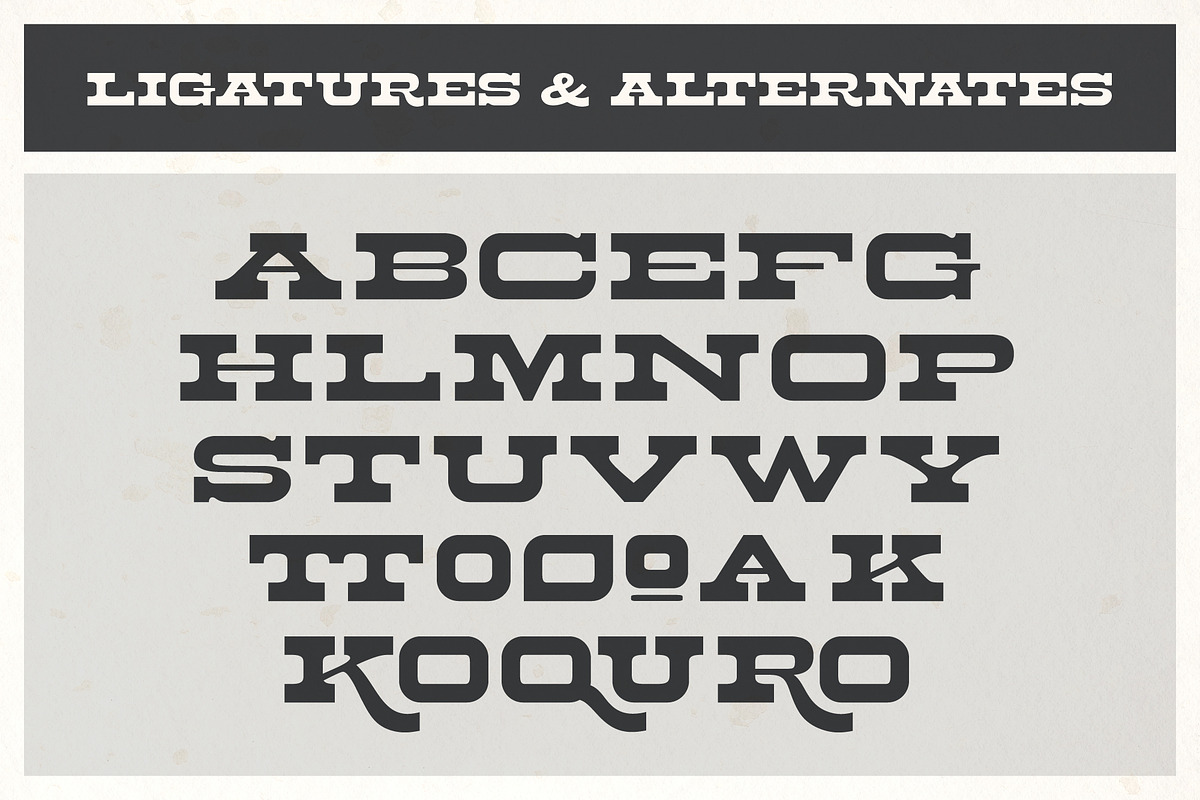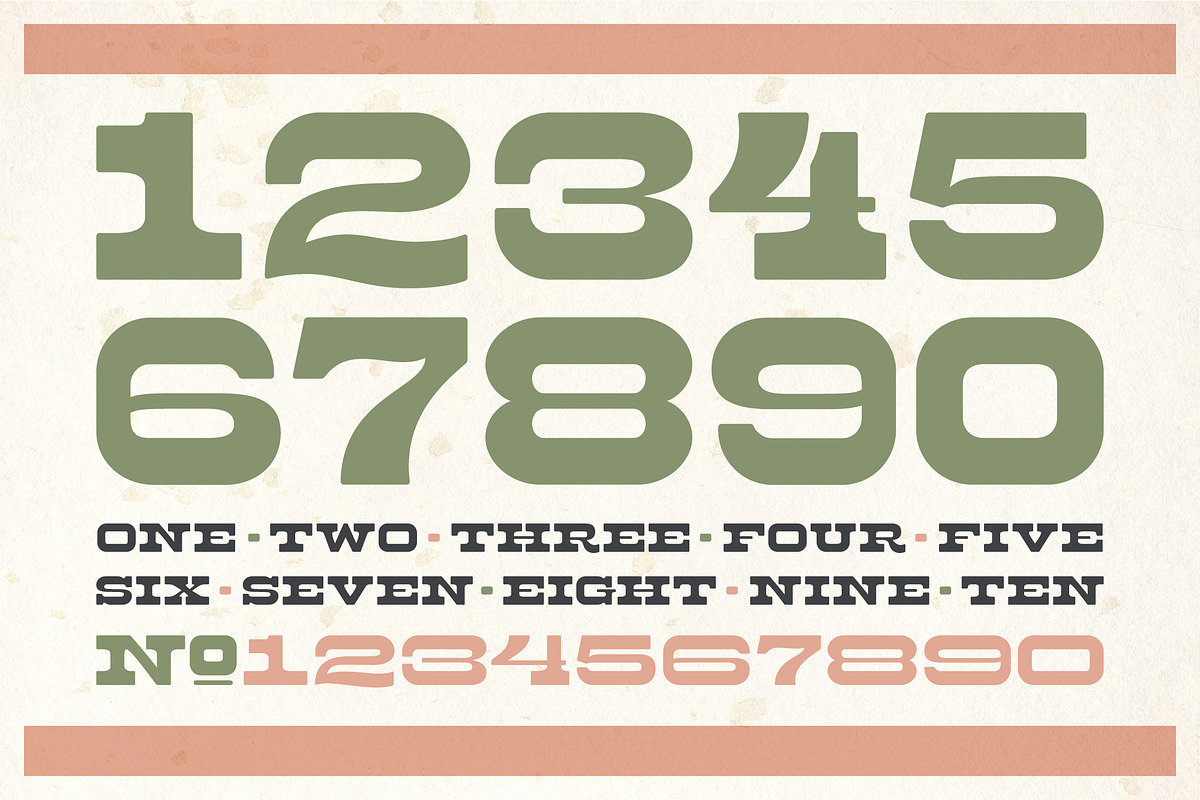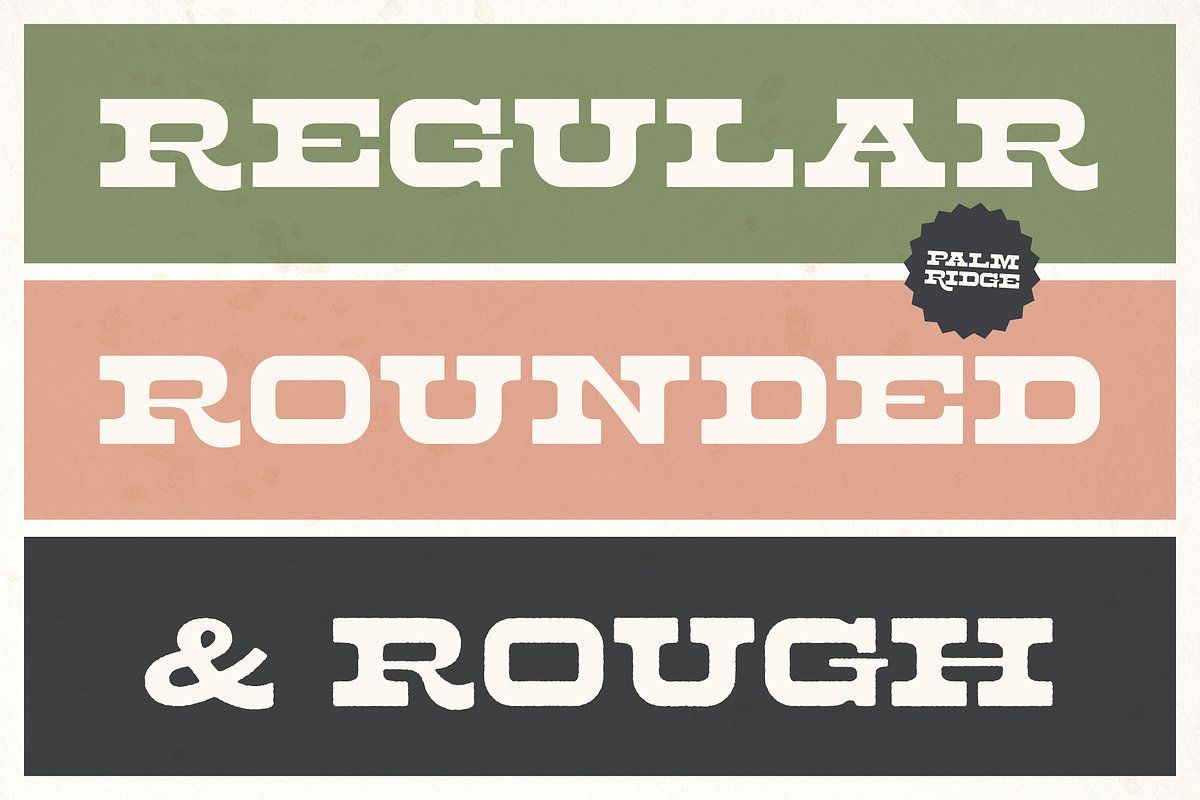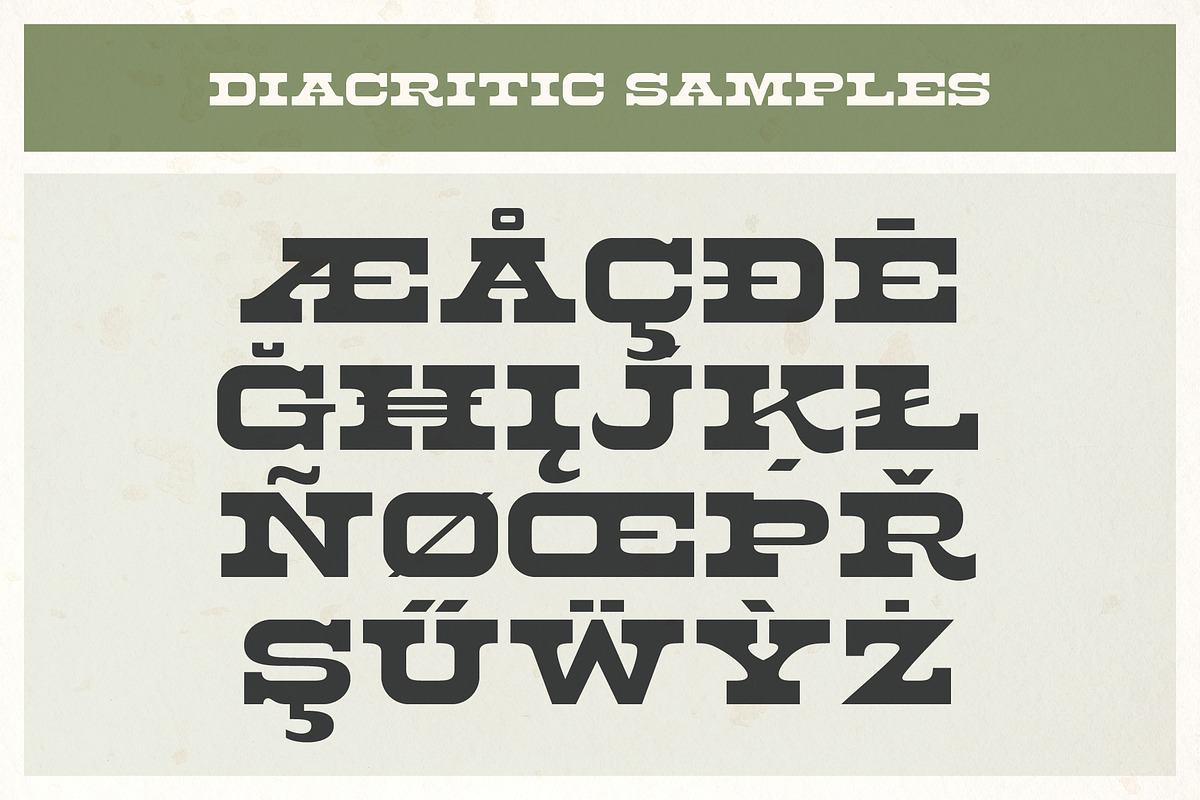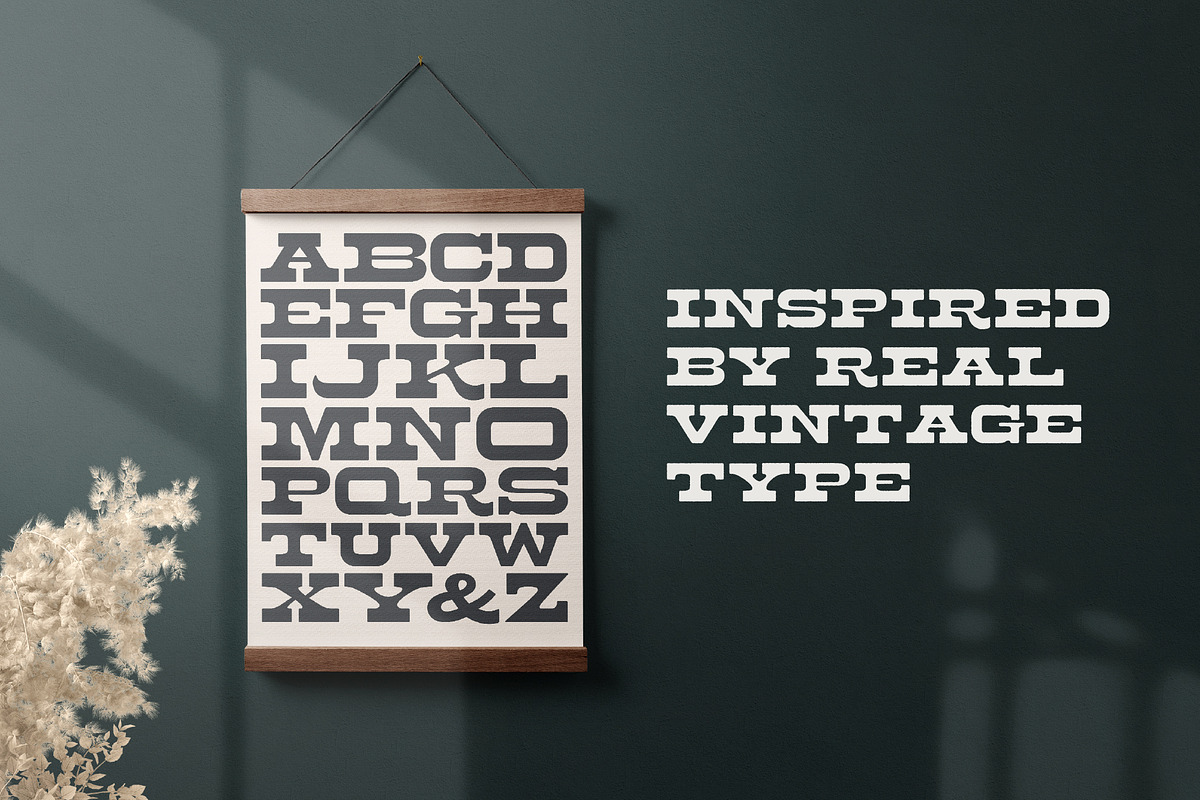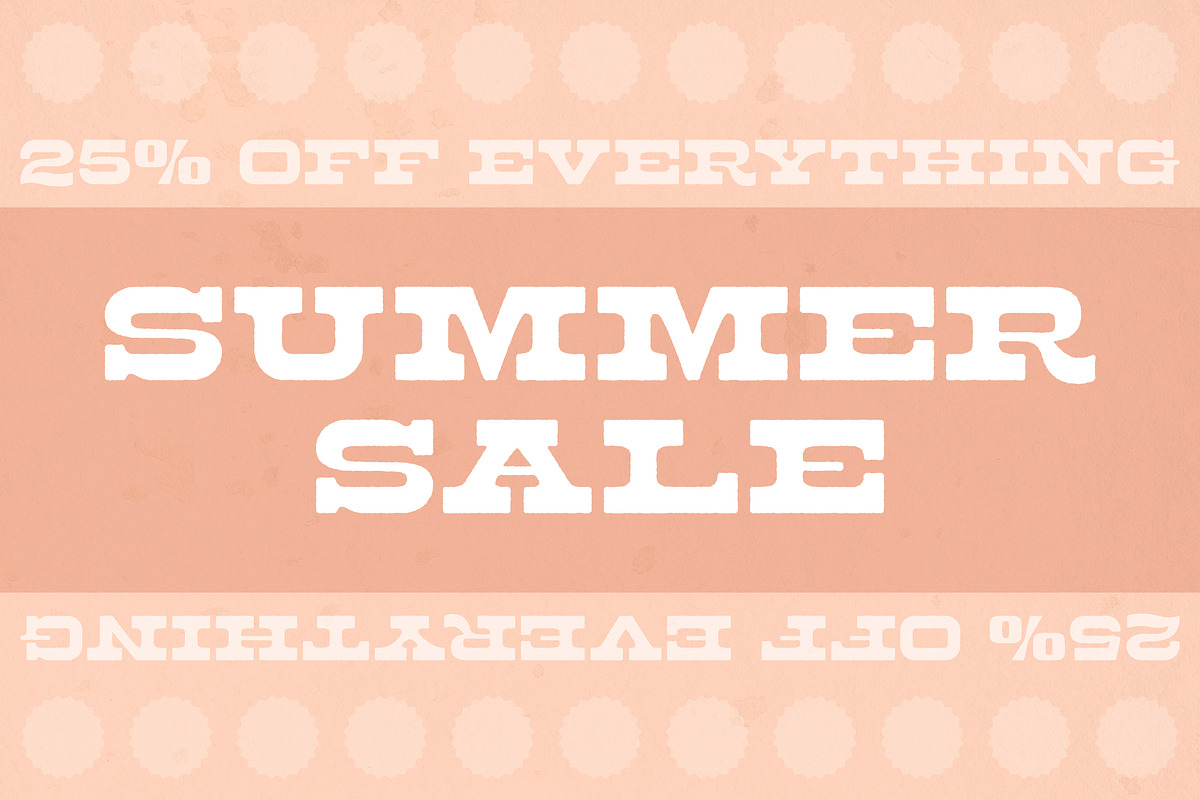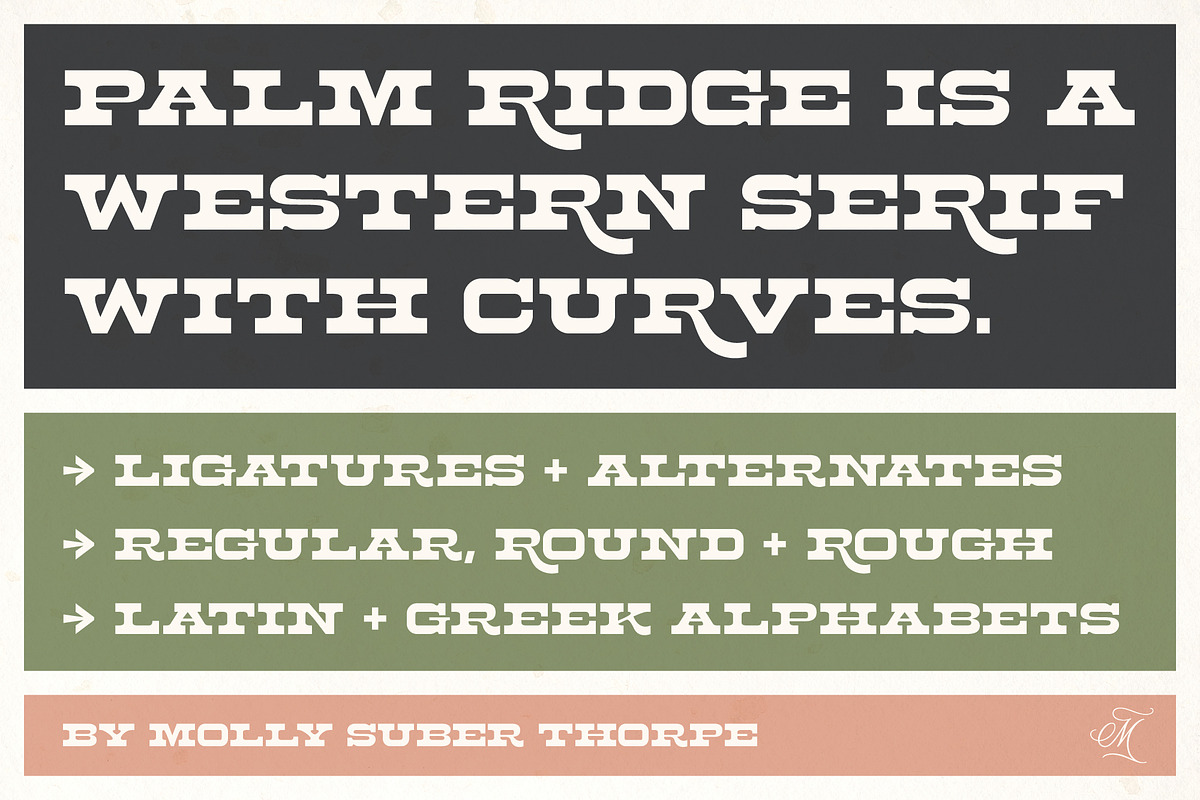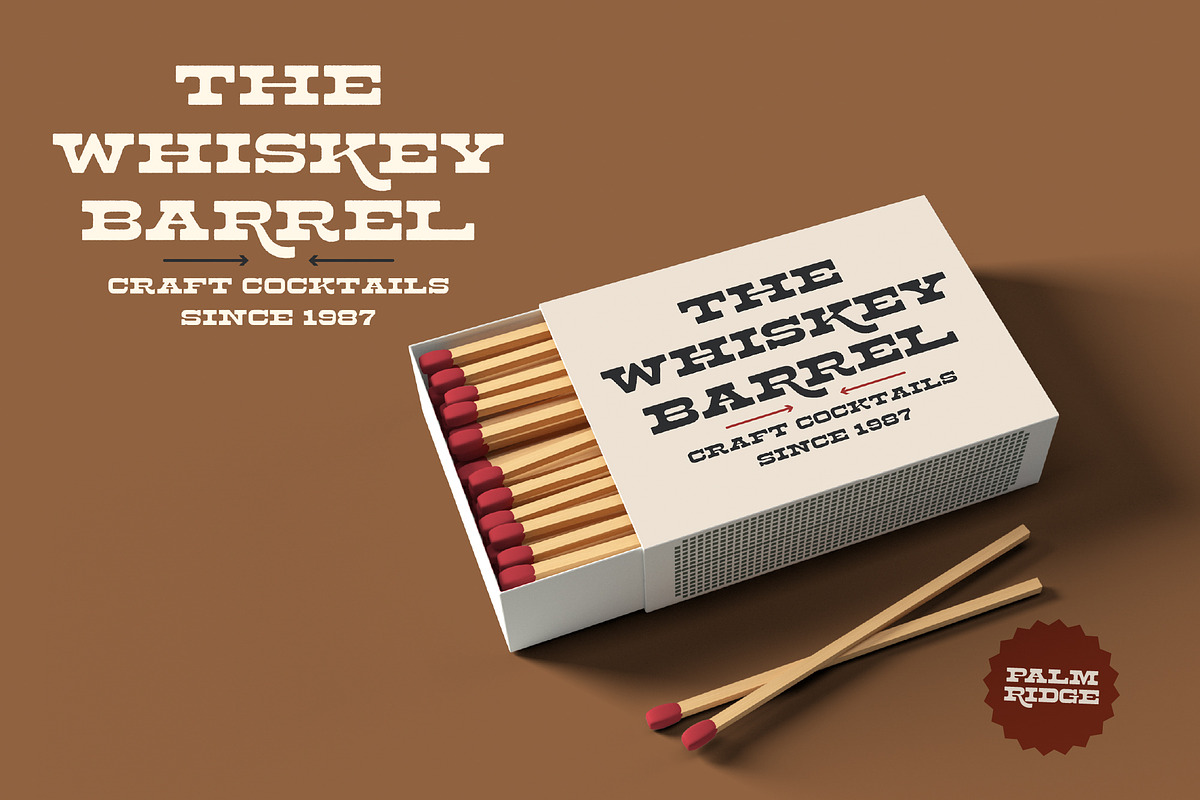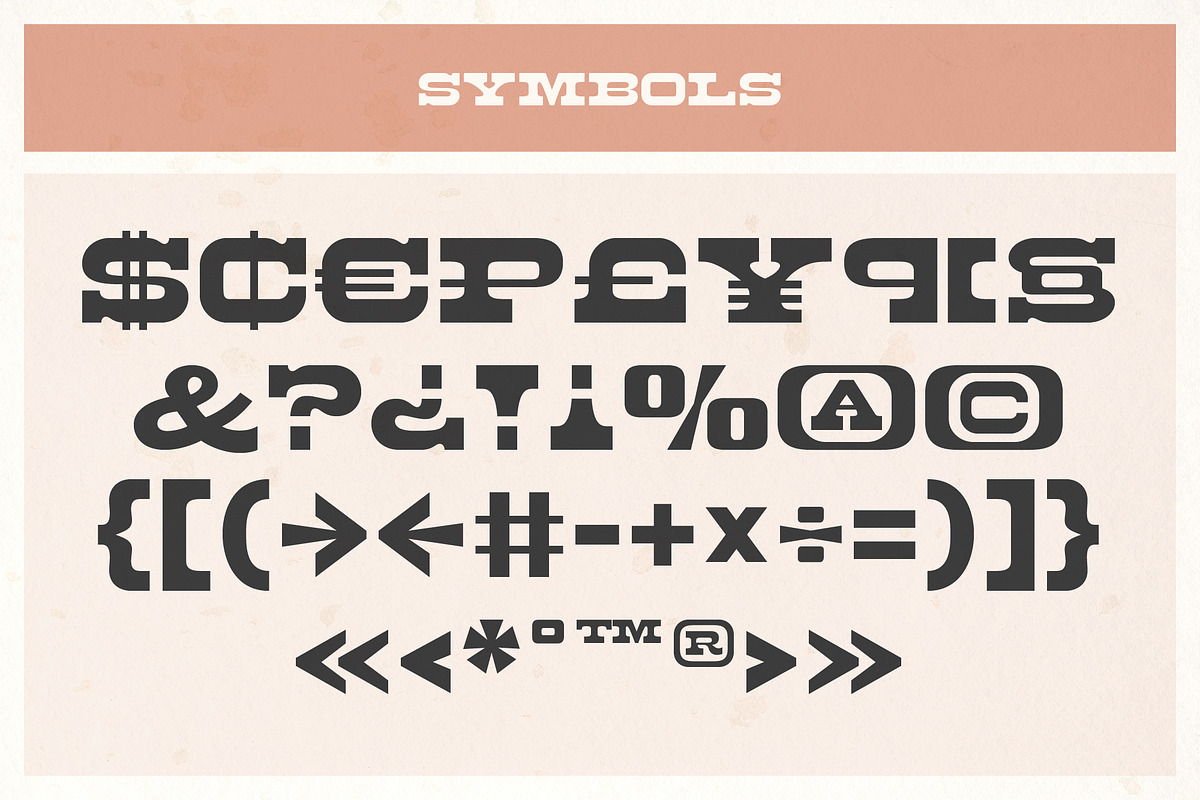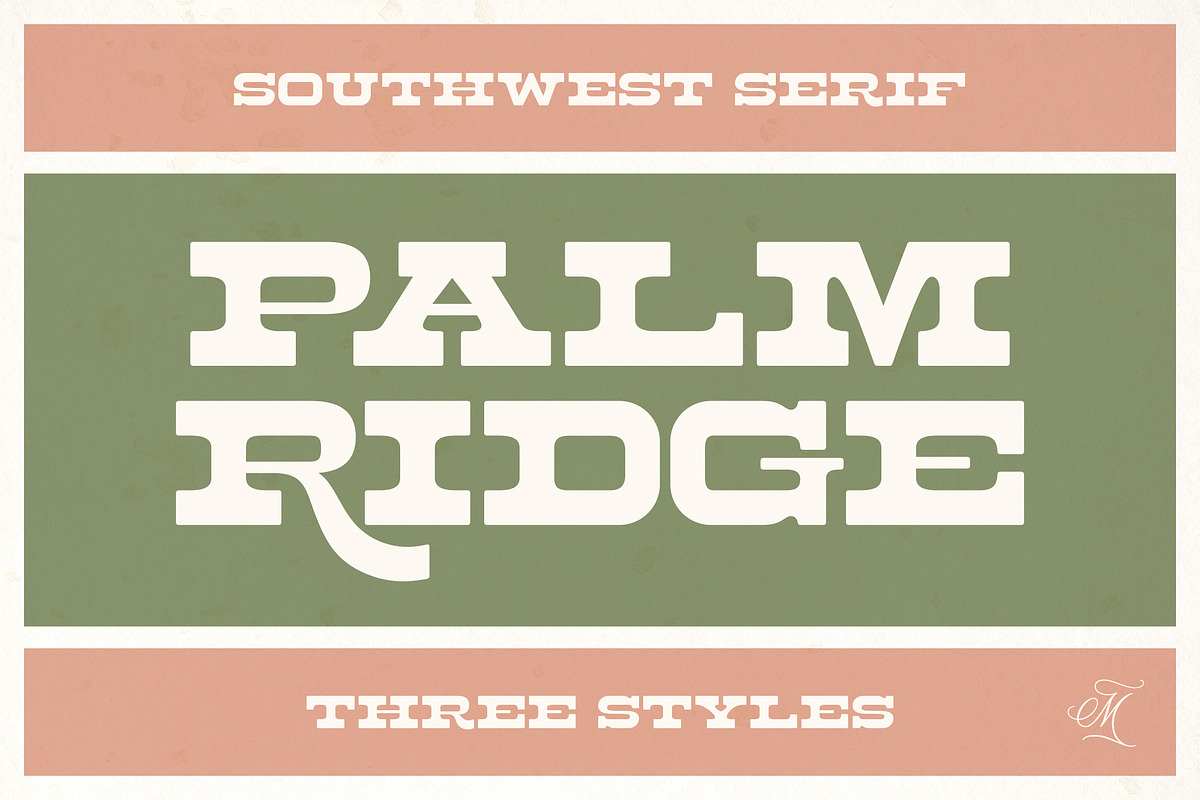
Palm Ridge Midcentury Southwest Font
Palm Ridge is a beautiful display typeface inspired by midcentury Southwestern type – imagine a Palm Springs getaway or roadside desert diner.
Palm Ridge comes in three styles: Regular, Rounded, and Rough. It also supports dozens of languages, including Greek.
This fun font can be used for retro and modern designs alike. It’s ideal for branding, bold layouts, midcentury advertising, typography artwork, and more.
Each of the three Palm Ridge styles (regular, rounded, and rough) has 376 glyphs consisting of:
the complete Latin alphabet (with all accent marks)
the complete Modern Greek alphabet (with all accent marks)
discretionary ligatures
stylistic and alternate glyphs (including an extra wide glyph set)
extensive punctuation, symbols, and diacritical markings
Languages
Palm Ridge supports dozens of languages which use the Latin and Greek alphabets. The most common languages it supports are: English, Catalan, Croatian, Czech, Danish, Dutch, Finnish, Flemish, French, German, Modern Greek, Italian, Maltese, Norwegian, Polish, Portuguese, Spanish, and Swedish.
The OpenType ligatures are the fun part.